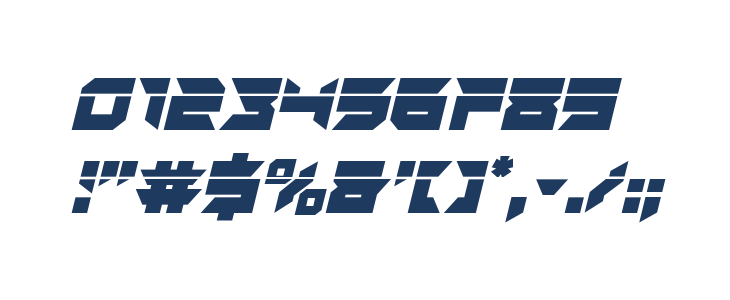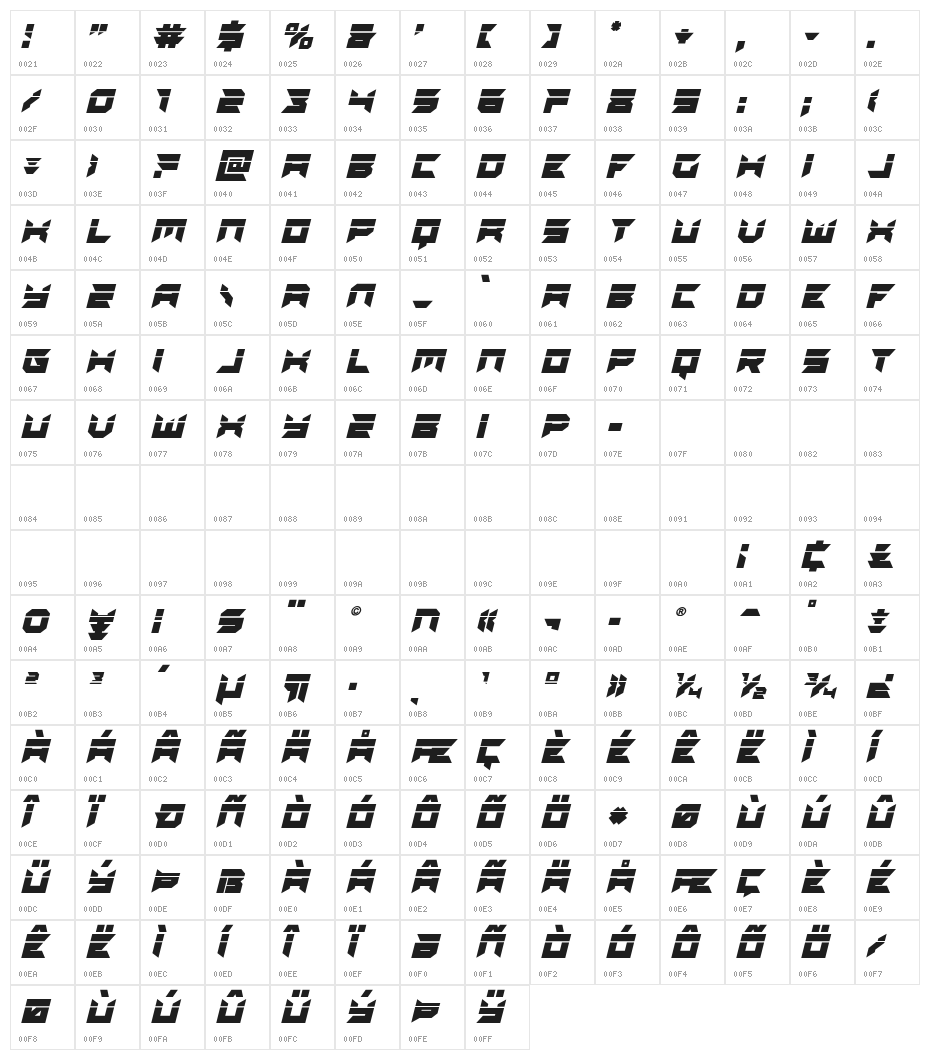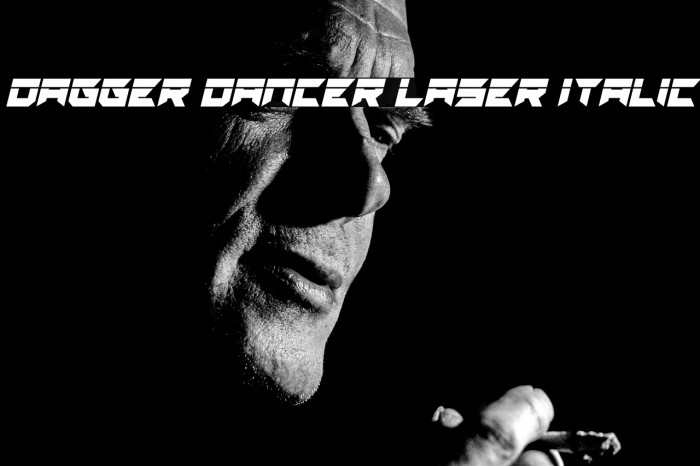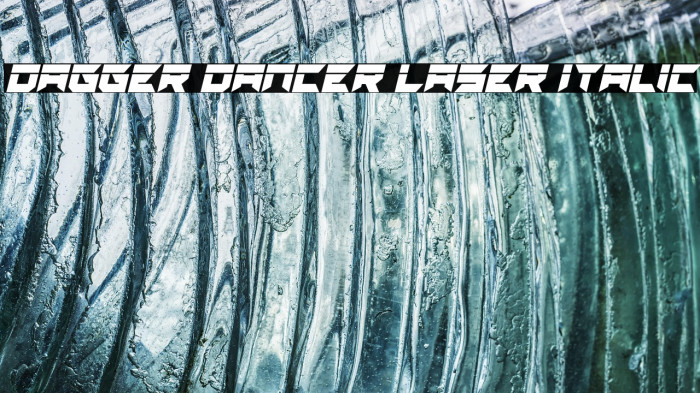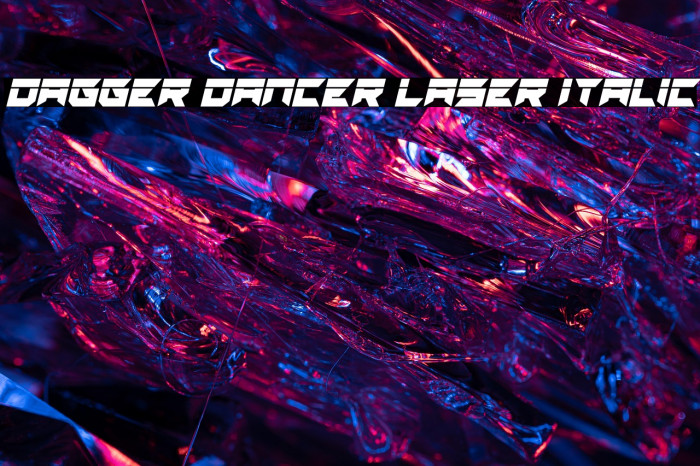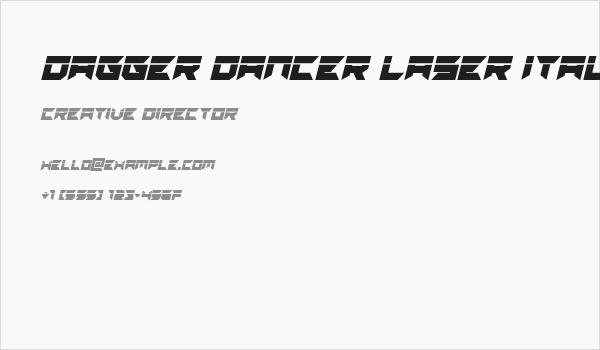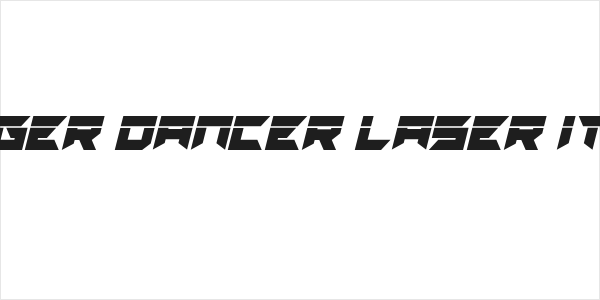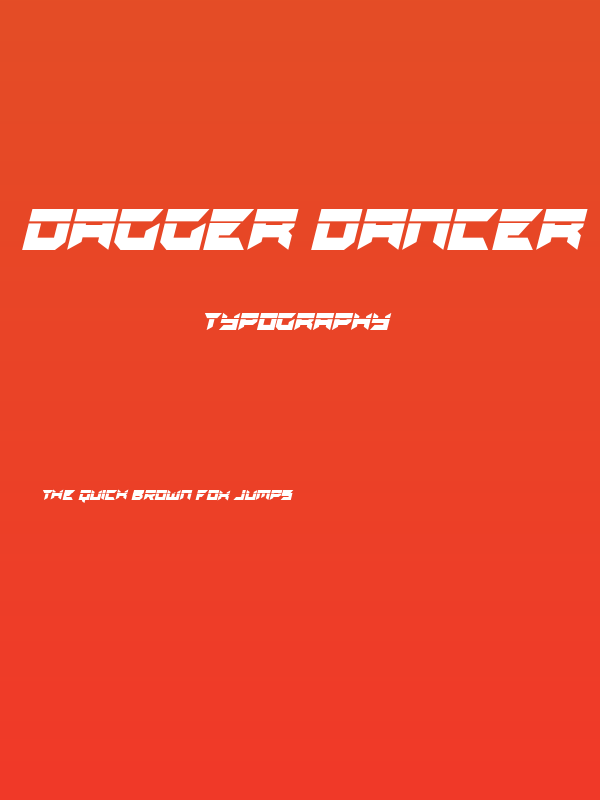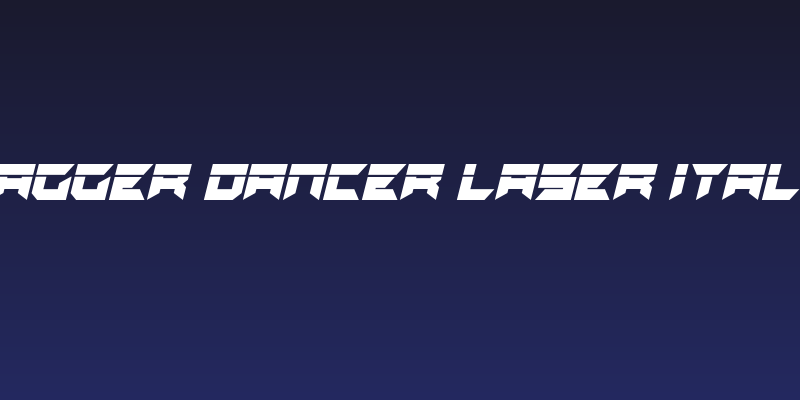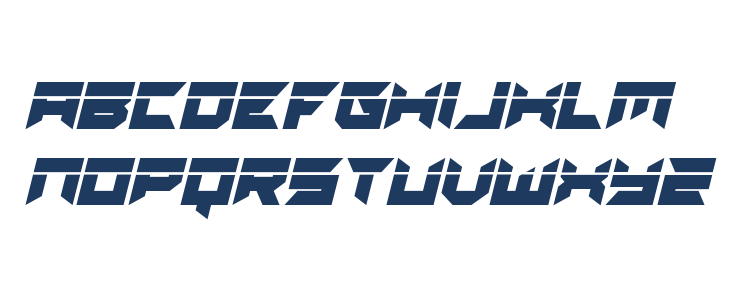
Dagger Dancer Laser Italic Font
Dagger Dancer Laser Italic Description
This font features a bold, angular design with sharp, geometric edges that create a futuristic and dynamic appearance. The characters are heavily stylized, with a consistent slant that adds a sense of motion and energy. The uppercase and lowercase letters maintain a uniform style, emphasizing the font's cohesive look. Numbers and special characters are designed with the same angular precision, ensuring a seamless integration across all text elements. The font's boldness and unique style make it stand out, ideal for projects that require a modern and edgy aesthetic.
| Proposed Projects | Ideal for sci-fi themed projects, video game titles, tech branding, and modern posters. |